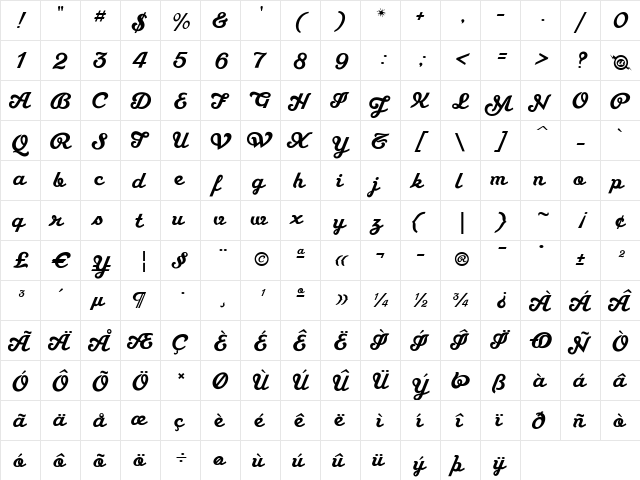
Radio Regular
Design Context for Radio Typeface
Radio is a composed and adaptable typeface that performs quietly and consistently across a wide range of design contexts.
Pro Tip: Pair Radio with a font of contrasting weight or personality to build a more expressive typographic hierarchy.